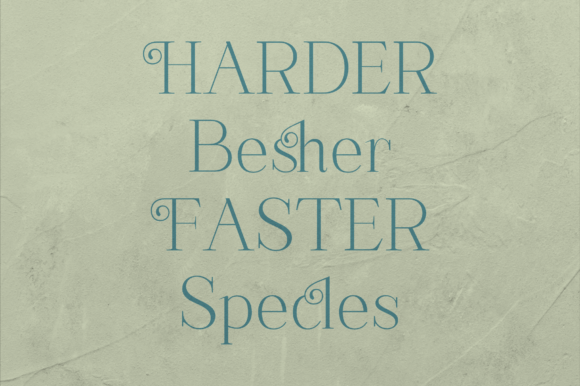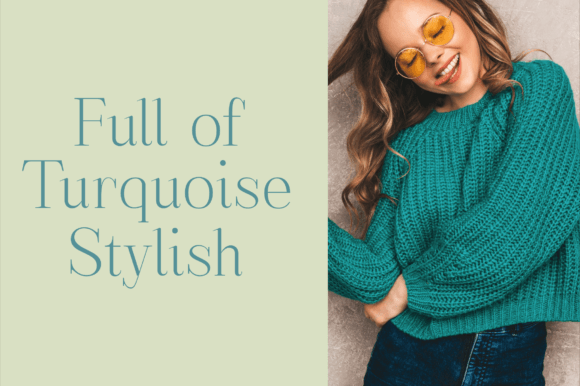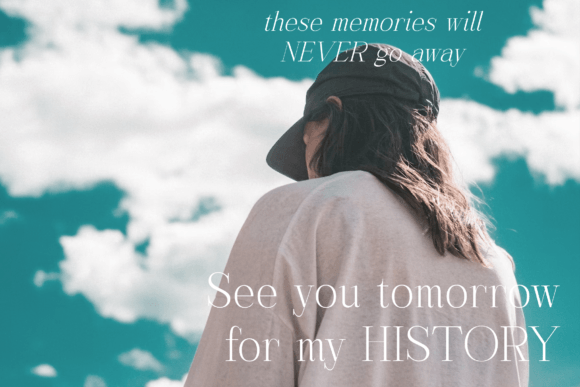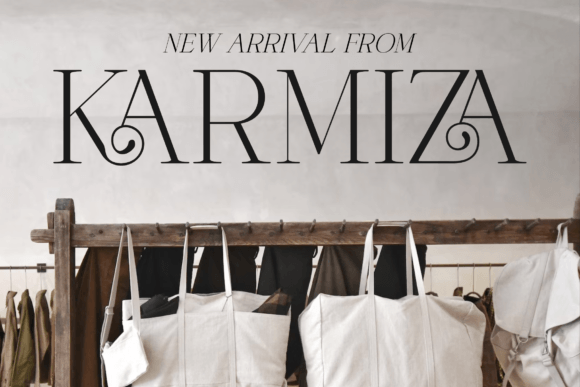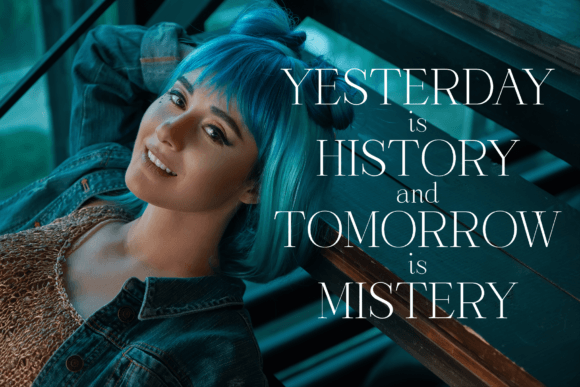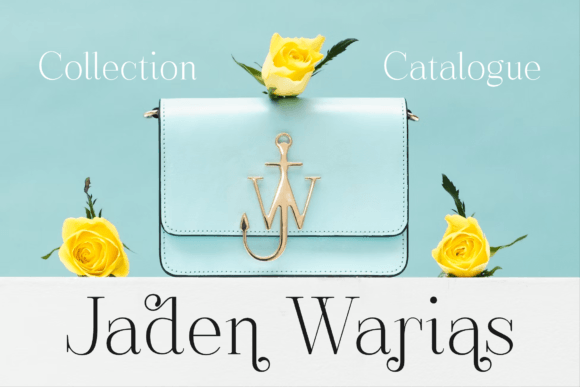
Introduction to Bhinacle Font
Have you ever stared at a blank canvas, wondering how to bring your creative project to life? The struggle is real, but sometimes all it takes is the right font to spark inspiration. For designers seeking a touch of elegance and sophistication, the Bhinacle Font is an excellent choice.
With its modern and stylish serif design, Bhinacle Font is perfect for creating a luxurious and high-end look. Whether you’re working on a fashion brand, magazine, or apparel project, this typeface is sure to elevate your design to the next level. Plus, its versatility makes it an excellent resource for lettering, quotes, and more.
Key Features of Bhinacle Font
- Unique Hand-Drawn Style: Bhinacle Font offers a distinctive, hand-drawn aesthetic perfect for creative projects requiring a personal touch.
- Perfect for Logos and Titles: The unique design of Bhinacle Font makes it an excellent choice for creating eye-catching logos and titles for your creative project.
Honest Review: Bhinacle Font
As a designer, I’m always on the lookout for high-quality design resources that can elevate my creative projects. Recently, I had the opportunity to work with the Bhinacle Font, and I must say it’s been a game-changer.
- ✨ High-quality typography: The Bhinacle Font has a unique and stylish aesthetic that’s perfect for modern designs.
- ⚠️ Limited character set: The Bhinacle Font has a relatively small character set, which may limit its use in certain projects.
- ⚠️ Not ideal for large text: Due to its stylized design, the font may not be the best choice for large blocks of text.
Overall, I’m impressed with the Bhinacle Font. Its unique style and high-quality design make it a valuable addition to any designer’s toolkit. While it may have some limitations, I think it’s a great resource for designers looking to add a touch of modern flair to their creative projects.
Bhinacle Font
Tips for Getting the Most Out of Bhinacle Font
To get the most out of the Bhinacle Font, experiment with different font sizes, colors, and styles to create unique and eye-catching designs. You can also combine it with other design elements to add depth and visual interest.
The Bhinacle Font is ideal for a variety of creative projects, including graphic design, digital art, and typography. It’s also a great choice for creating social media graphics, logos, and branding materials.